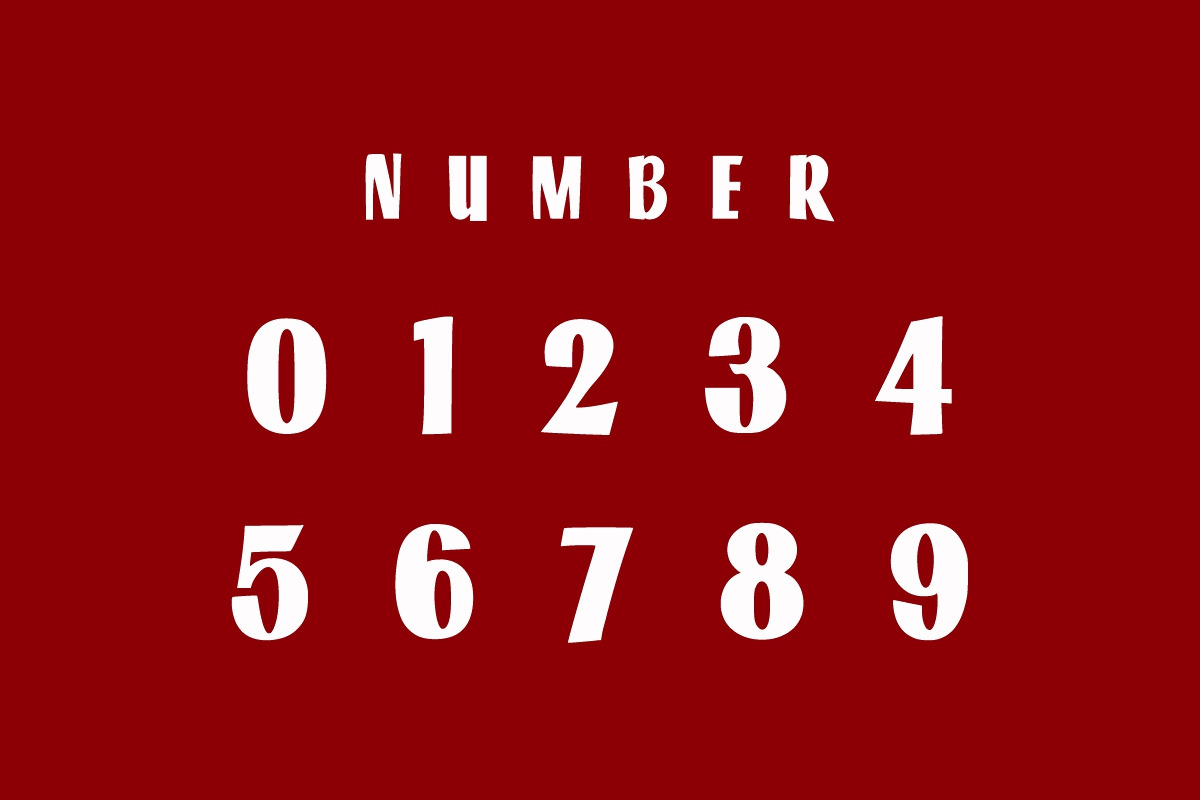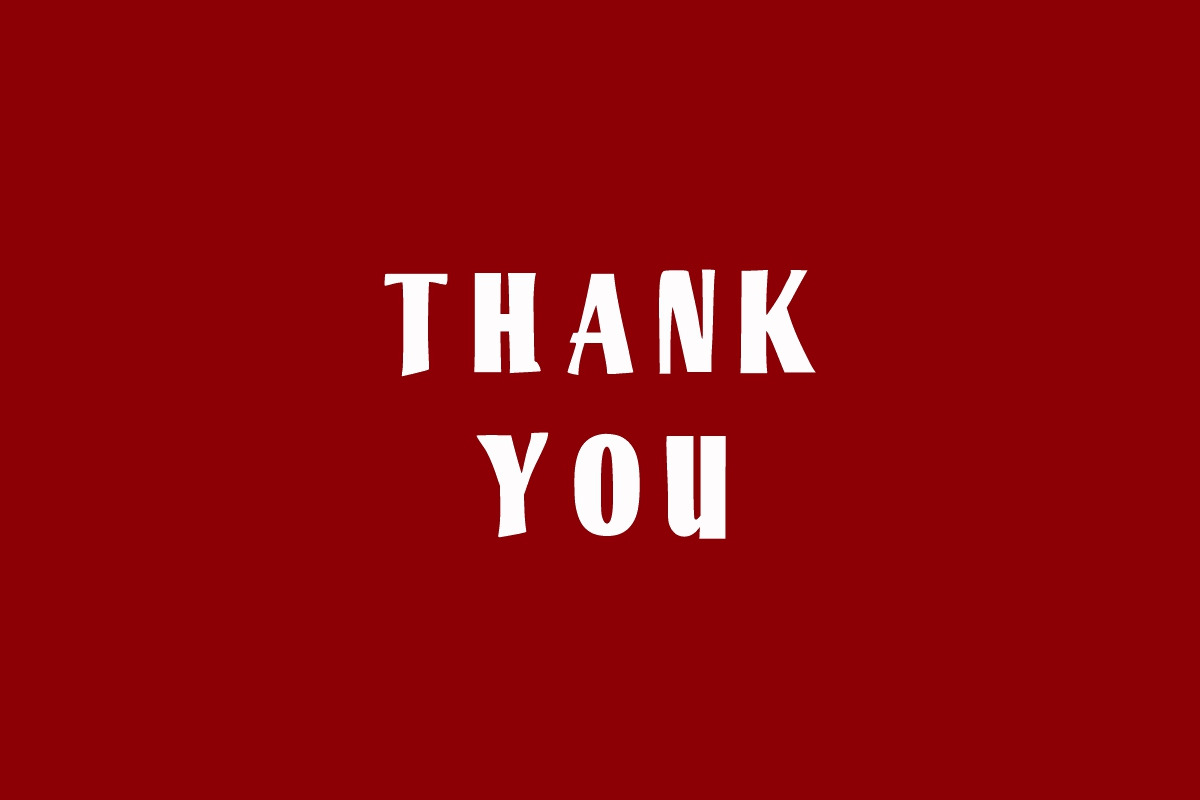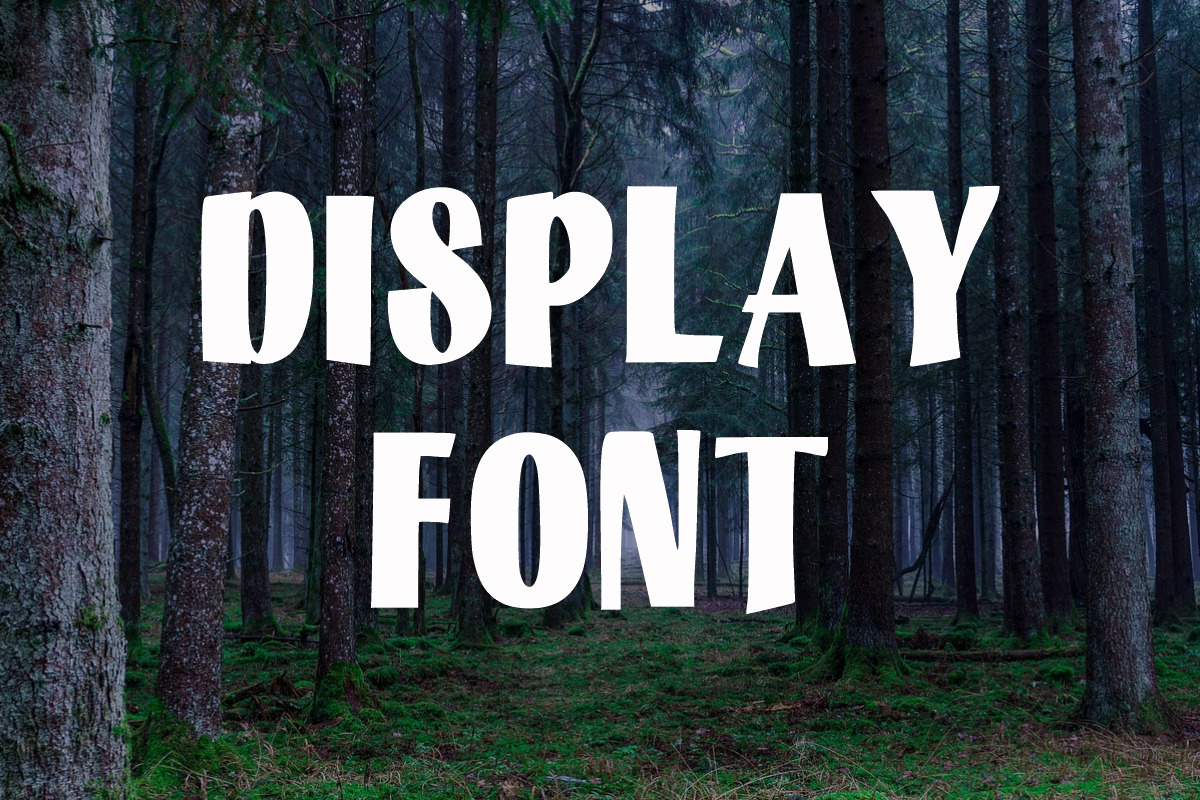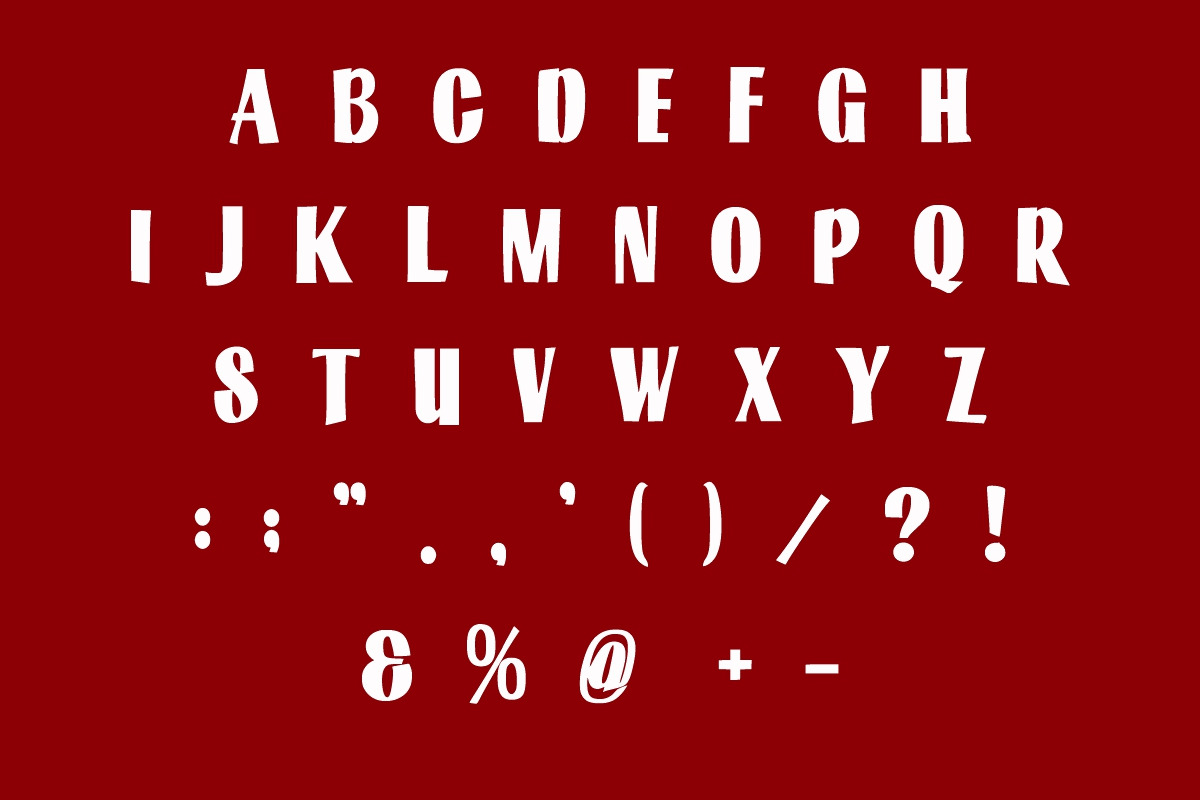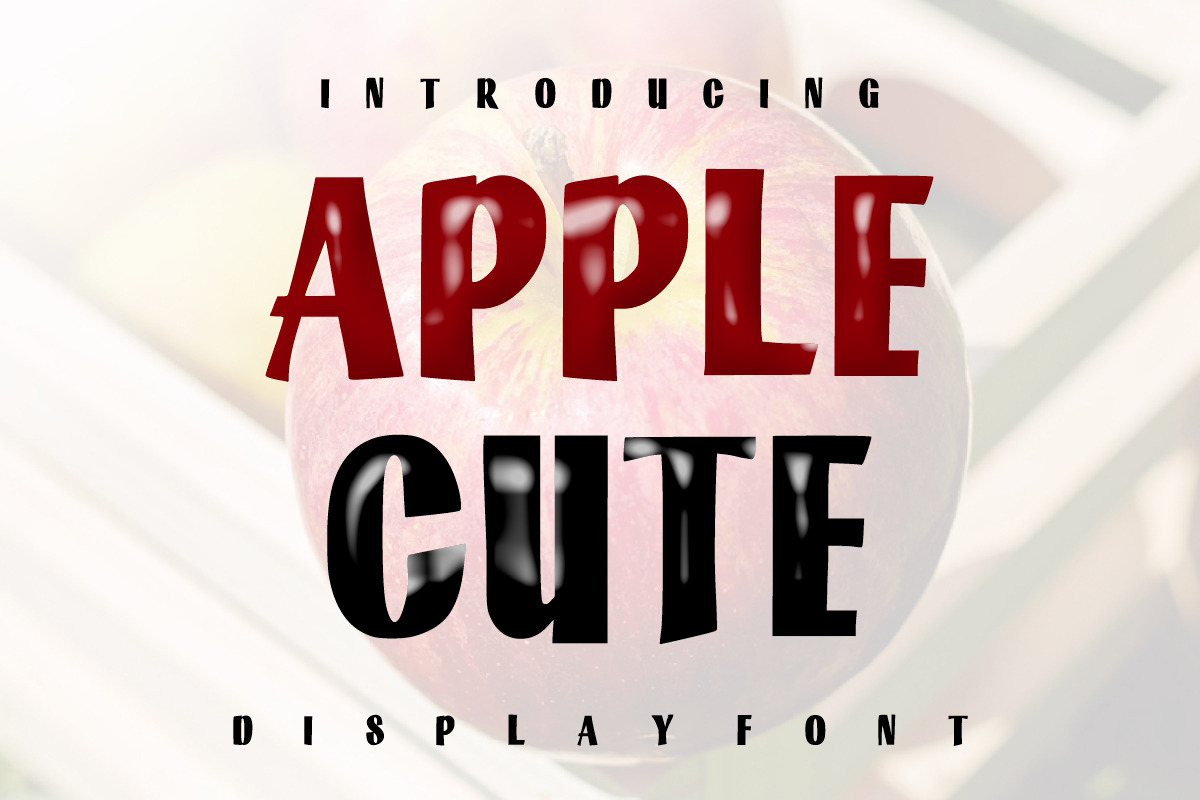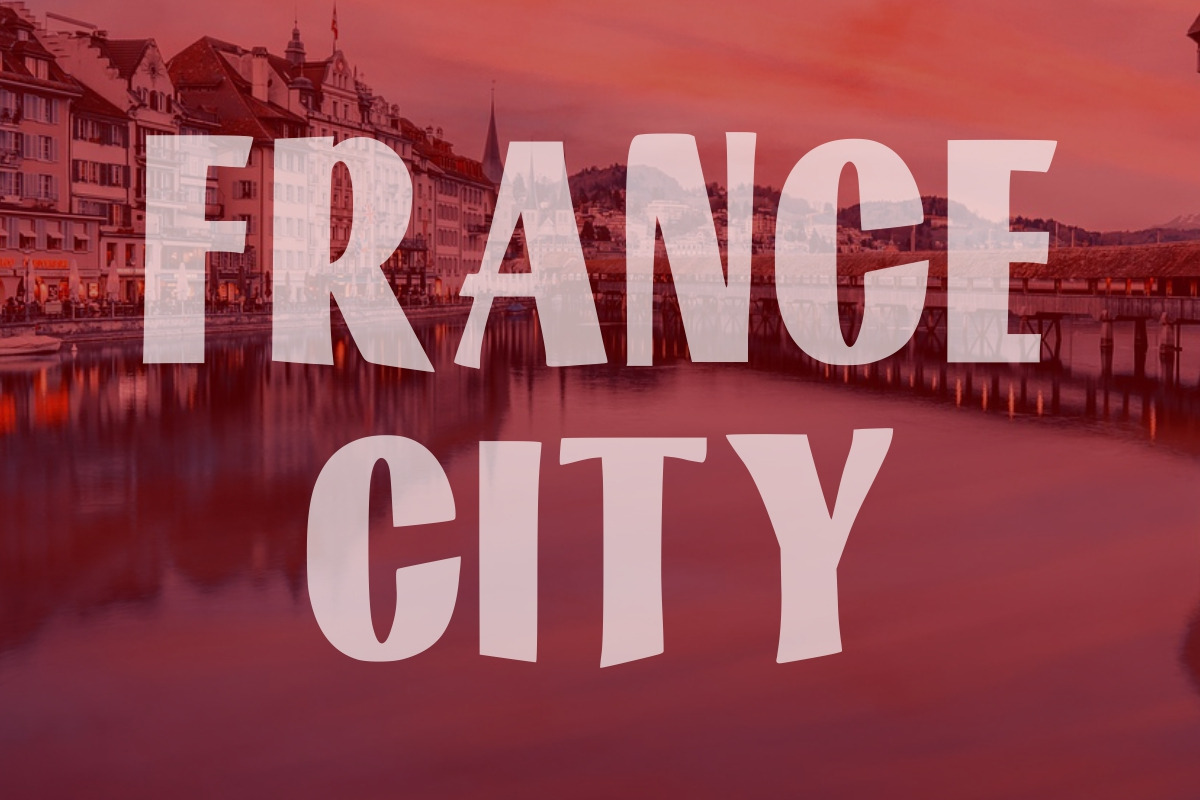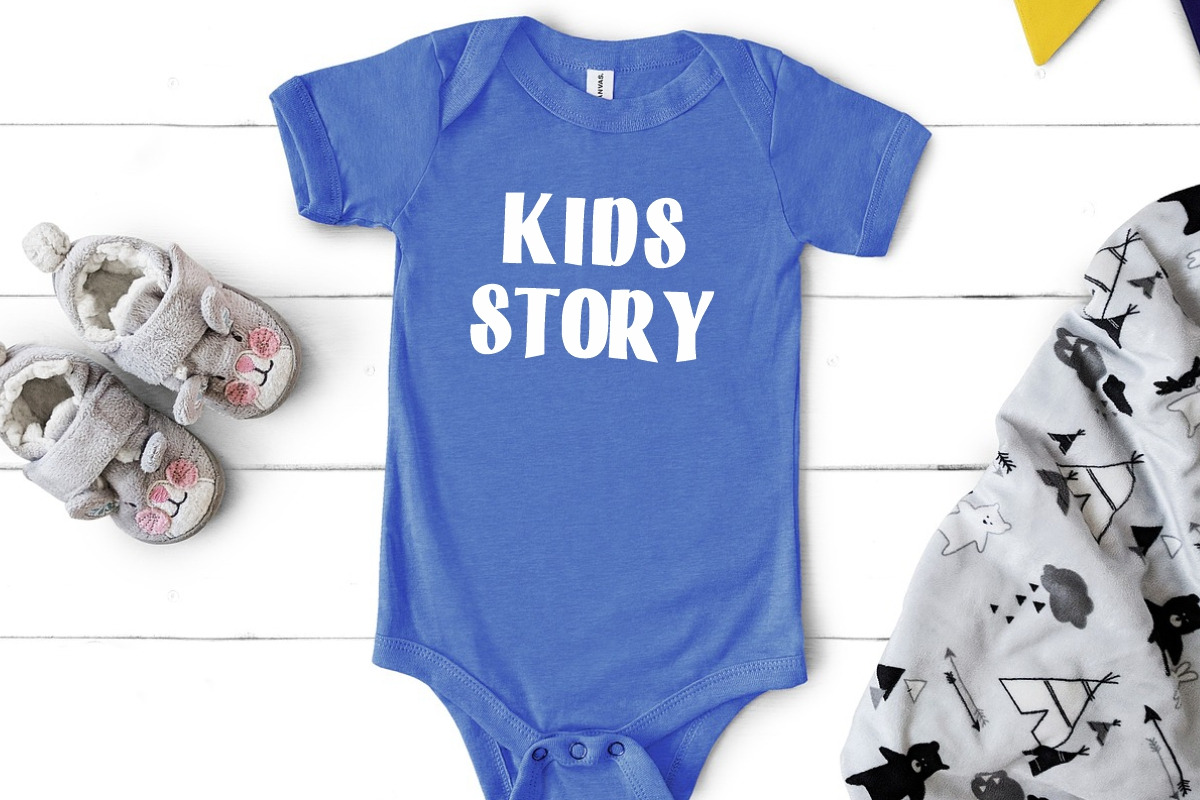
Apple Cute Font
Apple Cute is a gorgeous and friendly font, that conveys impeccable joy. Whether you’re using it for crafts, digital design, presentations, greeting cards, or design t-shirts, this font has the potential to become your favorite go-to font for each of your children’s projects.